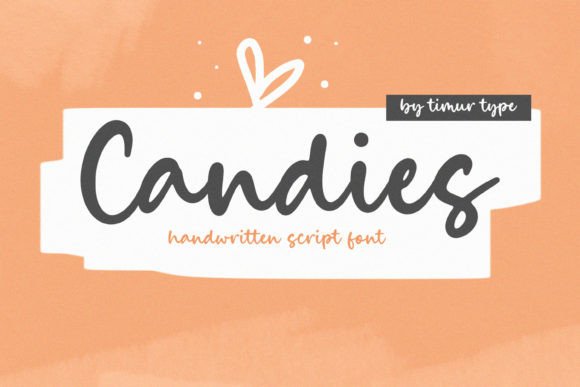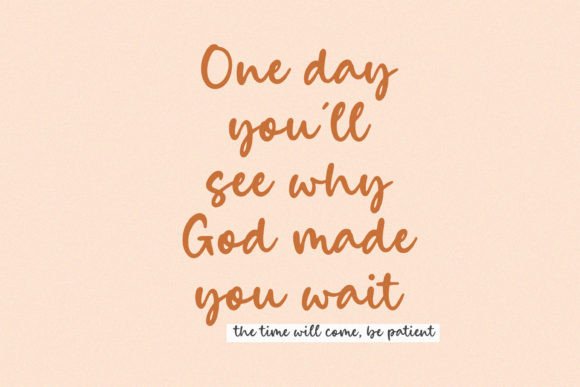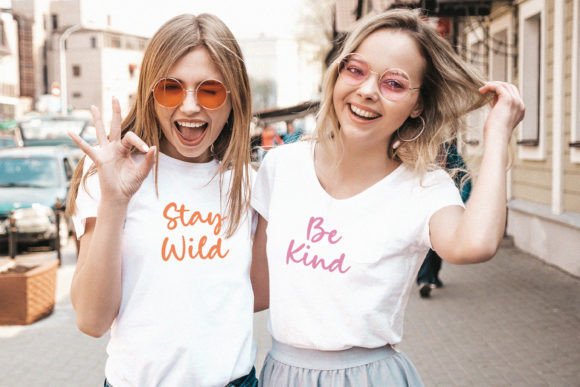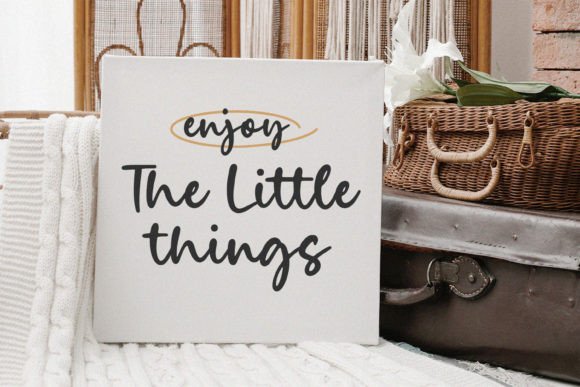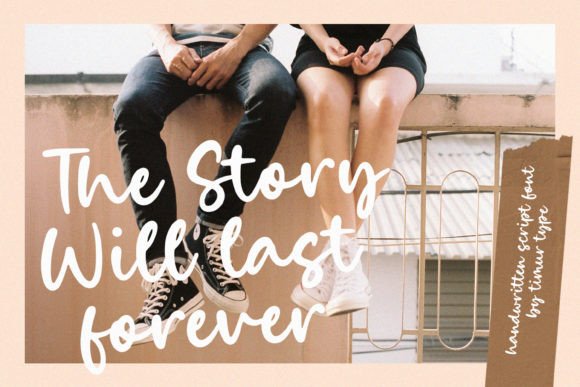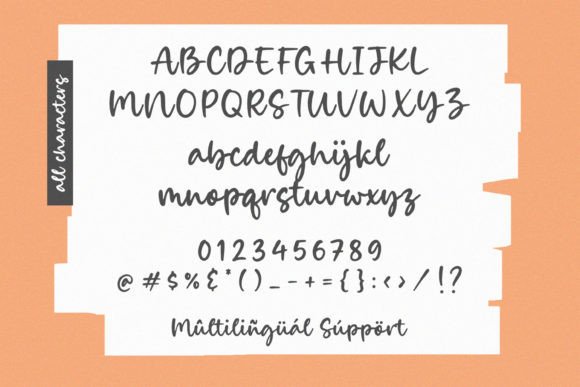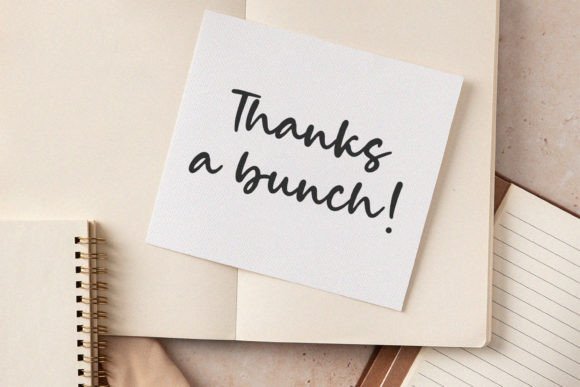
Candies Font
About Candies Font
Candies is a fresh and playful handwritten font that brings a cheerful spirit to your creative work. Its casual charm and youthful energy make it an excellent choice for a wide range of design projects. Whether you’re crafting personalized gifts, designing fun merchandise, or adding a whimsical touch to your social media posts, Candies is the font that will bring your ideas to life.
With rounded edges and hand-crafted letterforms, Candies exudes a sense of friendliness and joy. It feels natural and approachable, just like a hand-written note from a friend. This font is perfect for those who want to create lighthearted and happy visuals that connect emotionally with their audience.
Why Choose Candies?
Candies stands out for its ease of use, stylish appearance, and broad versatility. It strikes the perfect balance between playful and polished, making it ideal for both personal and professional projects.
✅ Playful and Light-Hearted
Candies adds a sense of fun and excitement to any design. It’s perfect for parties, celebrations, holidays, and kids’ themes.
✅ Versatile Applications
Use it for greeting cards, posters, branding, packaging, digital art, quotes, invitations, and much more.
✅ Handwritten Feel
Its handwritten style adds authenticity and personality to your designs, making them more relatable and unique.
✅ Craft Friendly
Perfect for Cricut, Silhouette, and DIY craft projects, especially those aimed at families, kids, and lifestyle brands.
Perfect for Fun and Creative Projects
Candies thrives in creative and expressive spaces. Whether you’re designing for a children’s brand or creating Instagram content for a lifestyle blog, this font adapts beautifully.
Here are just a few use cases:
• Birthday cards and party invites
• Children’s books and school projects
• Labels for handmade products
• T-shirts, mugs, and tote bag designs
• Social media captions and graphics
• Classroom posters and stickers
Its playful tone makes every word feel light and joyful, and its clean, legible structure keeps your message clear.
Whether you’re a professional designer or a beginner working on your first creative project, you’ll find Candies easy and intuitive to work with.
Add Sweetness to Your Designs
Candies is more than just a font — it’s a design companion that adds happiness and creativity to everything you make. Let it bring a cheerful tone to your text and transform everyday designs into something extraordinary.